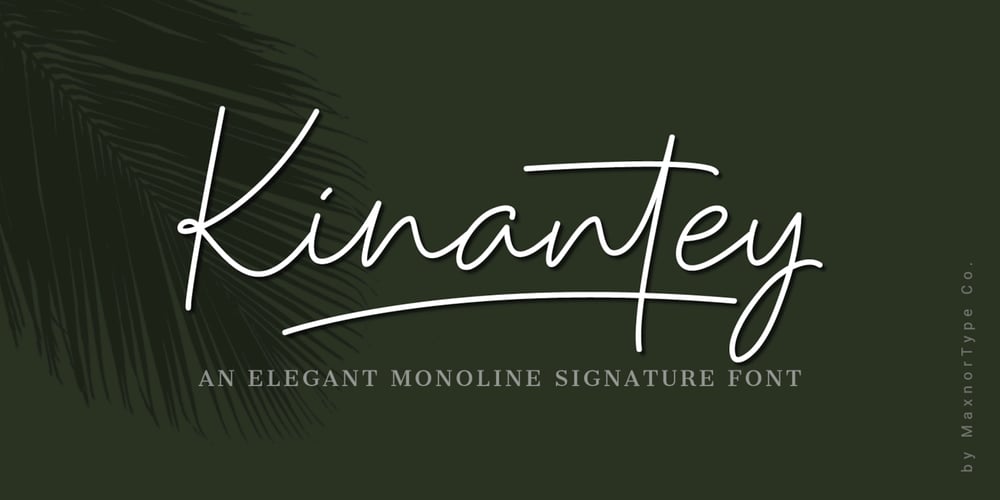
Kinantey Font Family was designed by Ahmad N. and published by MaxnorType. Kinantey contains 1 styles and family package options. Kinantey is an elegant monoline signature script font with smooth lines and many alternates of swashes. It can be used for various purposes, such as signature, branding, watermark, greetings, logos, stationery, wedding invitations, etc.